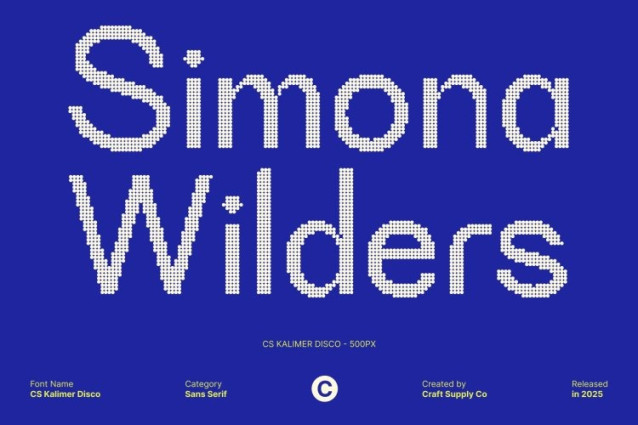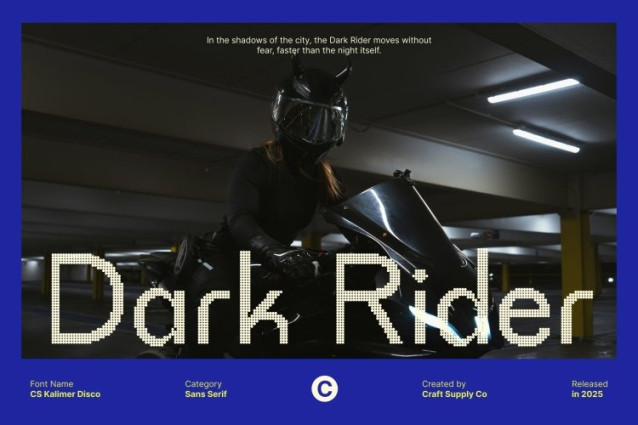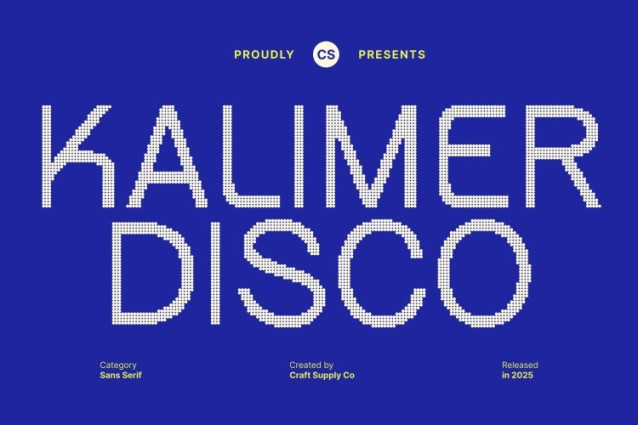
CS Kalimer Disco Font a modern sans serif structure built on clarity, strength, and refined simplicity. Its clean lines and balanced proportions give the font a confident, stylish presence that elevates any layout. Perfect for designers who want a typeface that feels bold, polished, and effortlessly contemporary.
Glamorous Shine with Disco Sparkle Overlay
What sets this font apart is its shimmering disco overlay. The subtle sparkle effect adds a touch of glamour and excitement, bringing a lively and eye-catching flair to the otherwise clean design. This combination of simplicity and shine creates a unique aesthetic modern, confident, and undeniably expressive.
Perfect for Headlines, Branding, and Editorial Design
This font in display settings where clarity meets impact. Its bold structure ensures attention-grabbing headlines, while its polished forms make it an excellent choice for branding and editorial layouts. Whether you’re aiming for sleek sophistication or energetic modernity, this font adapts with ease.
Balanced Style for Versatile Creative Use
With its mix of stylish precision and playful sparkle, offers designers a versatile tool for various design needs. From fashion branding and event posters to magazine features and digital graphics, it delivers a clean yet glamorous look that stands out while staying professional and refined.